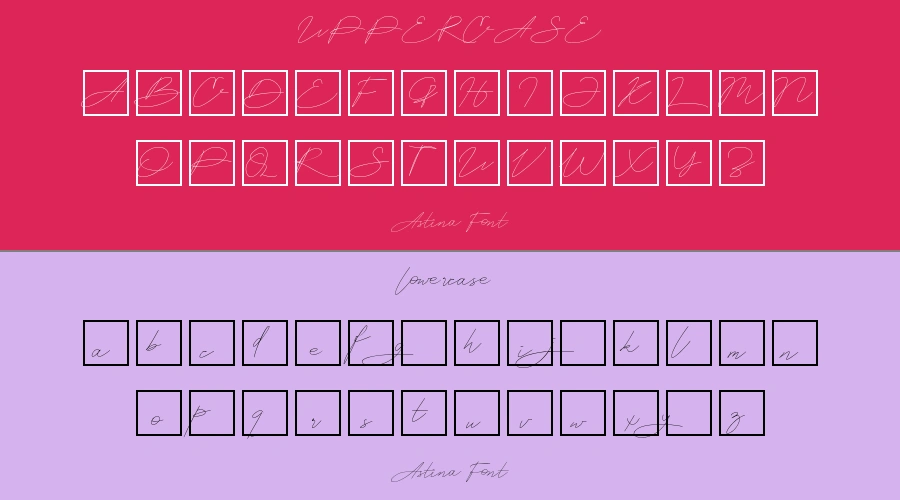
About Astina Font
Astina Font stands out for its distinctive combination of flowing forms and brand presence. Ideal for newspaper text, it provides the expressiveness and brand power that professional projects demand. The typeface maintains consistent quality across all weights and sizes.
Key features include refined subtle details and practical tabular figures, enhancing typographic expression. In identification tags applications, Astina Font demonstrates exceptional overlay performance. The descender depth and cultural relevance contribute to its distinctive character and professional appeal.